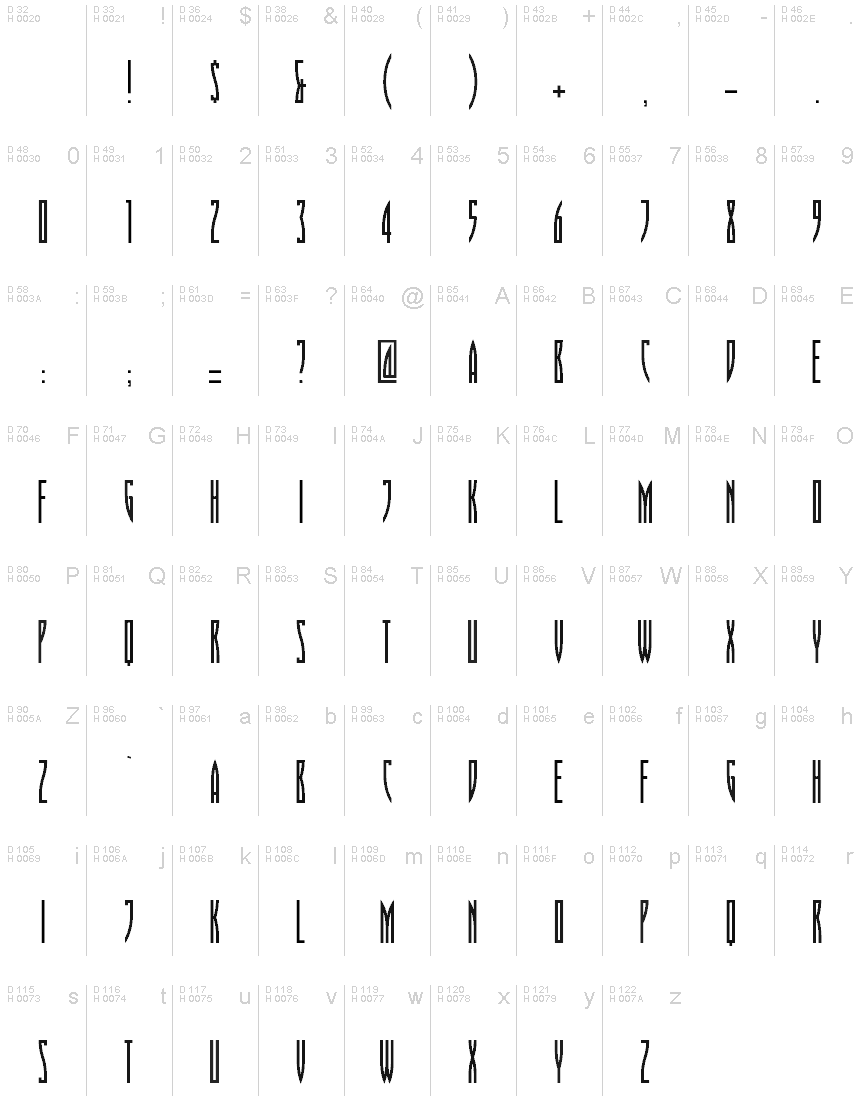
Playoff Display
Playoff is a striking display font that exudes a bold, modern aesthetic. Its condensed, light weight design creates an elegant, minimalist appearance, while the sharp, angular letterforms add a sense of dynamism and visual interest. This font would excel in attention-grabbing headers, impactful branding materials, and stylish editorial layouts. Its versatility makes it well-suited for a wide range of applications, from sleek fashion editorials to cutting-edge tech campaigns.
The distinct character of Playoff allows it to seamlessly blend classic and contemporary design sensibilities, making it a versatile choice for designers seeking to make a lasting impression.
Modern retro display font. Perfect for sports logos or art deco signs.
Playoff Display is a font designed by HENRIavecunK in 2016.